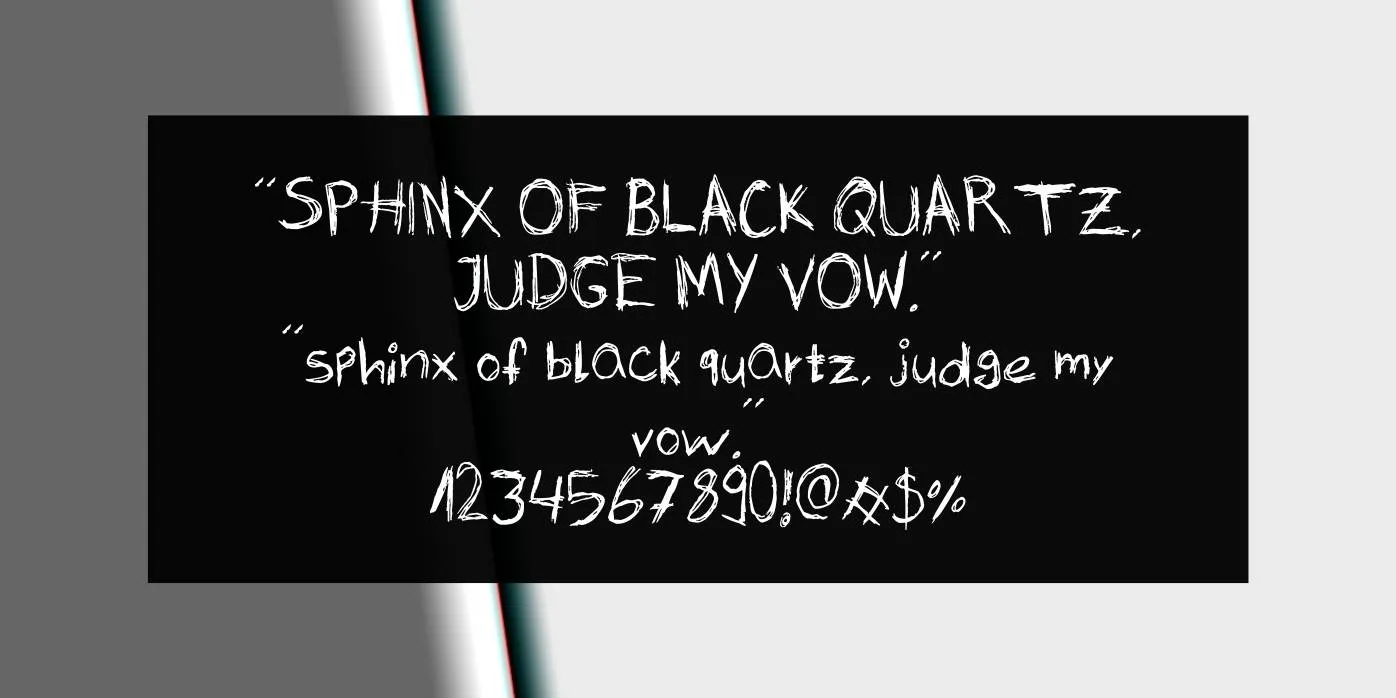
Skribble Font
Skribble Font is a script typeface that was designed by Jim Wasco and released through Microsoft in 1996. It is a brush font that has a distinctive handwritten look. The Font family includes four weights: light, regular, bold, and black. The Font was inspired by the work of British lettering artist Alf Becker.
The glyph of this font is based on the letterforms that Becker created for a London department store in the 1950s. Moreover, you can also try bebas kai font for your logos and other typography designs as well. The Font family is well-suited for a wide range of applications. It can be used for both formal and informal settings.
The light weight is particularly well-suited for invitations and other documents that require a delicate touch.